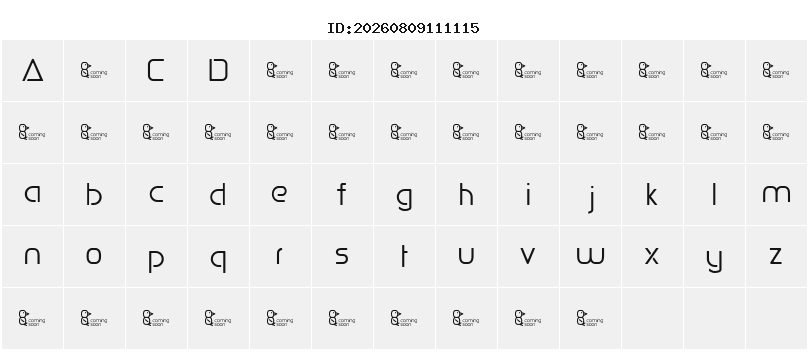
• Font Name: Penguin Sans
• Designer: Andrew Leto
About Penguin Sans.ttf
Penguin Sans.ttf is a modern, elegant sans-serif font designed for ultimate readability and visual harmony. Perfect for branding, headlines, web design, and print materials.